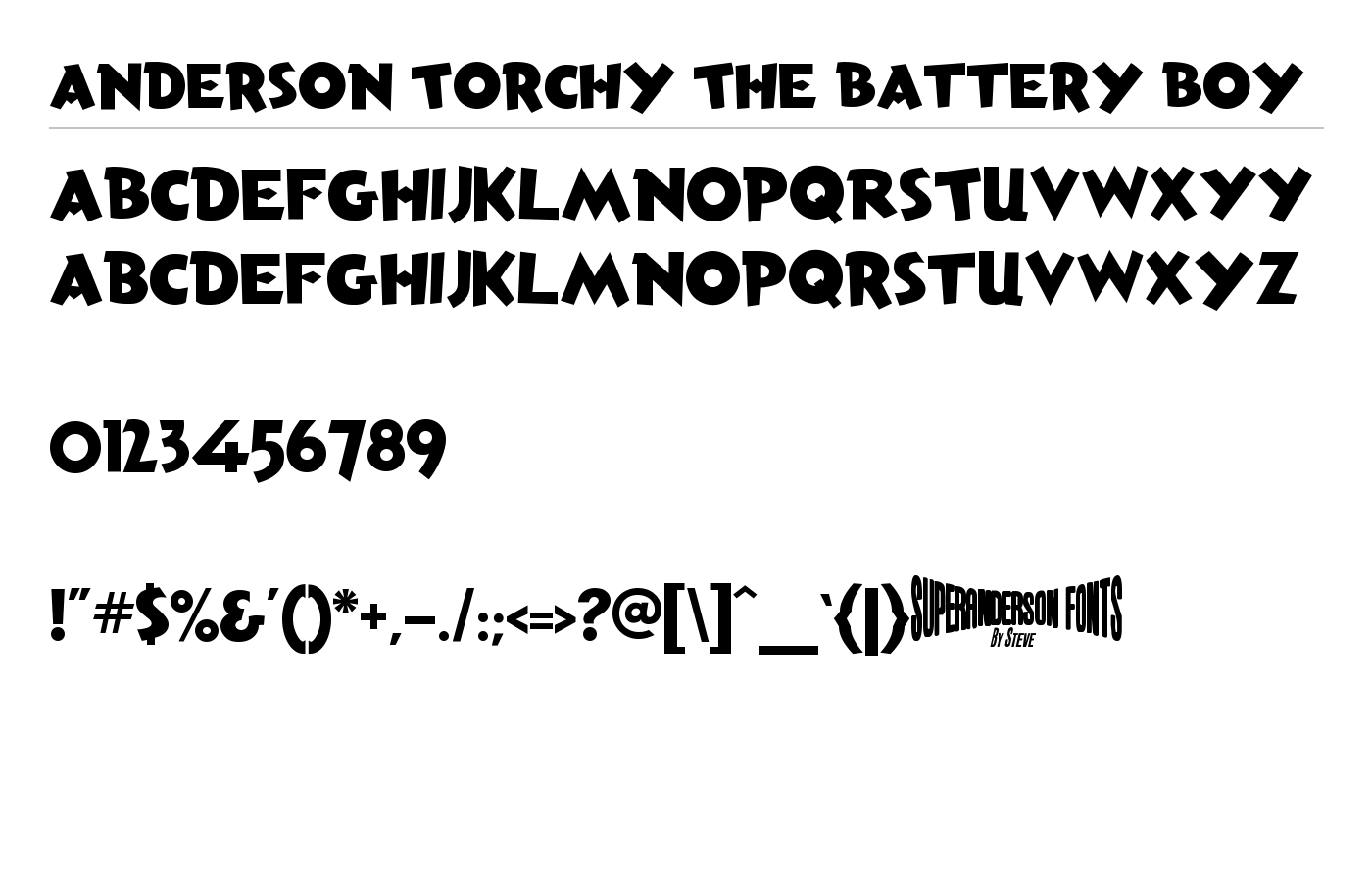
Anderson Torchy The Battery Boy is a bold, playful sans serif font with a strong, quirky personality. Its chunky, uneven letterforms and exaggerated angles give it a fun, energetic feel, making it ideal for headlines, posters, and branding that seeks to grab attention with a youthful and informal vibe. This font works especially well for creative projects and designs that want to convey a sense of whimsy and boldness.
Anderson Torchy The Battery Boy Font
About Anderson Torchy The Battery Boy Font